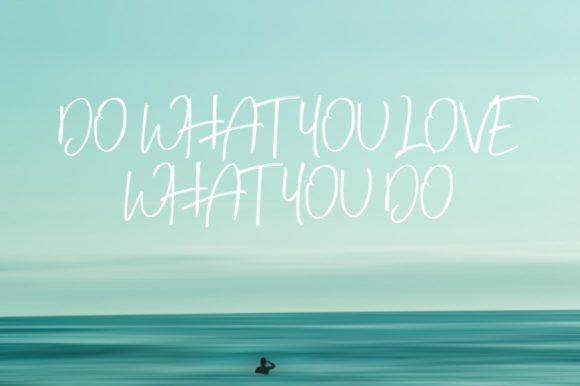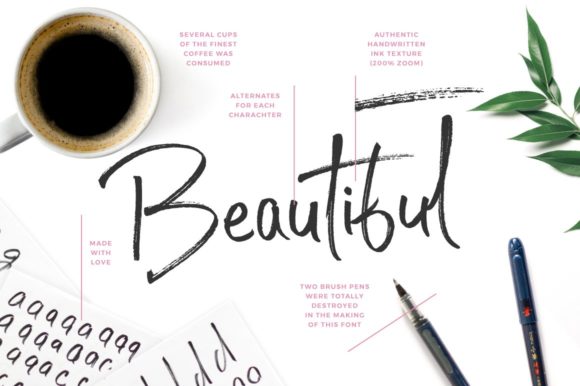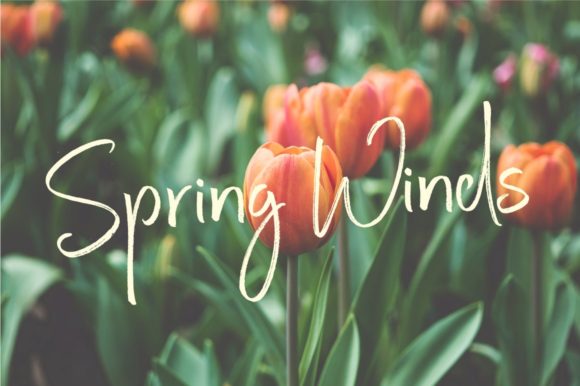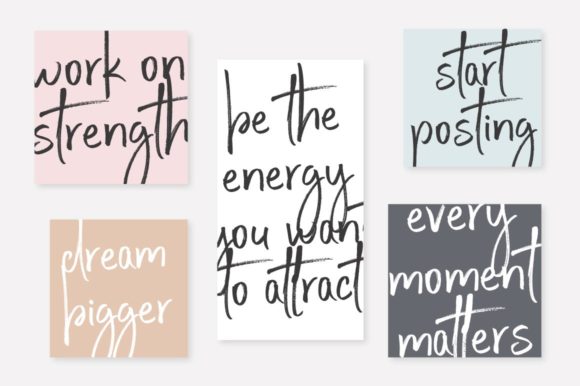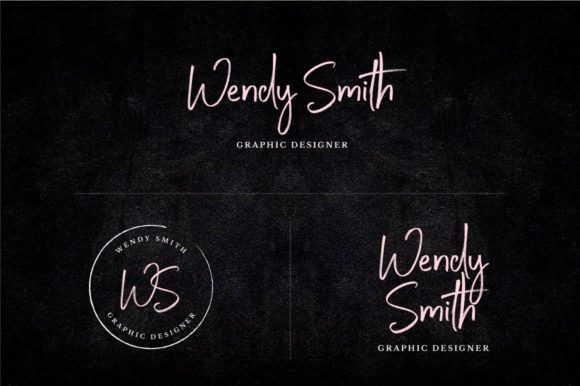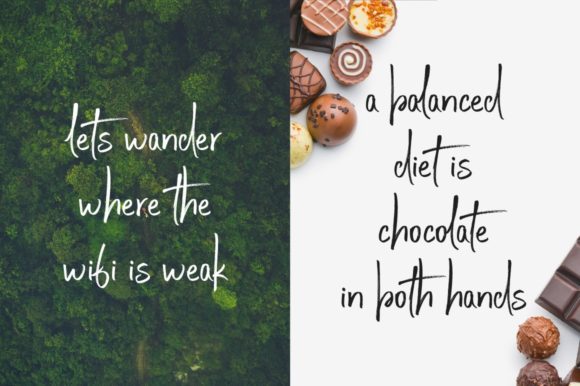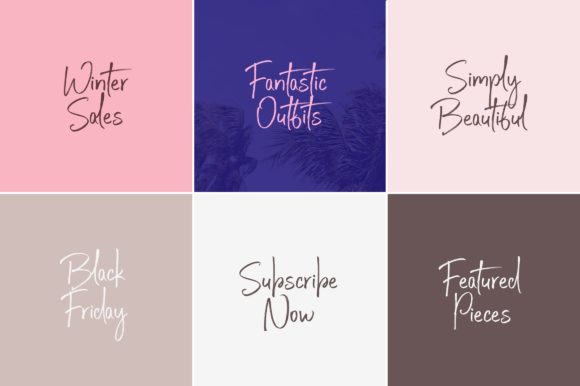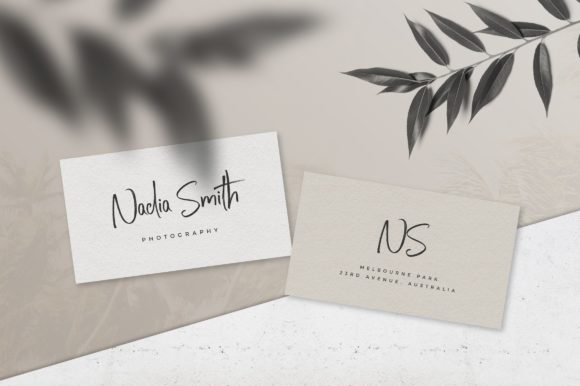
Steadfast Font
About Steadfast Font
Steadfast is a fancy, fashionable and sweet script with a unique style. It will turn any design project into a true standout!